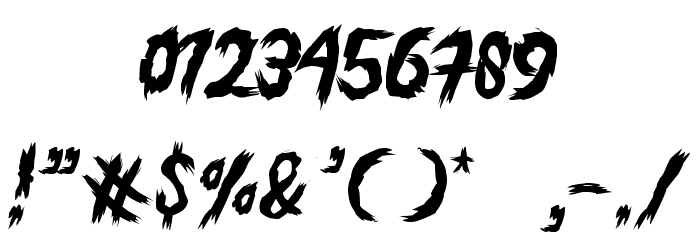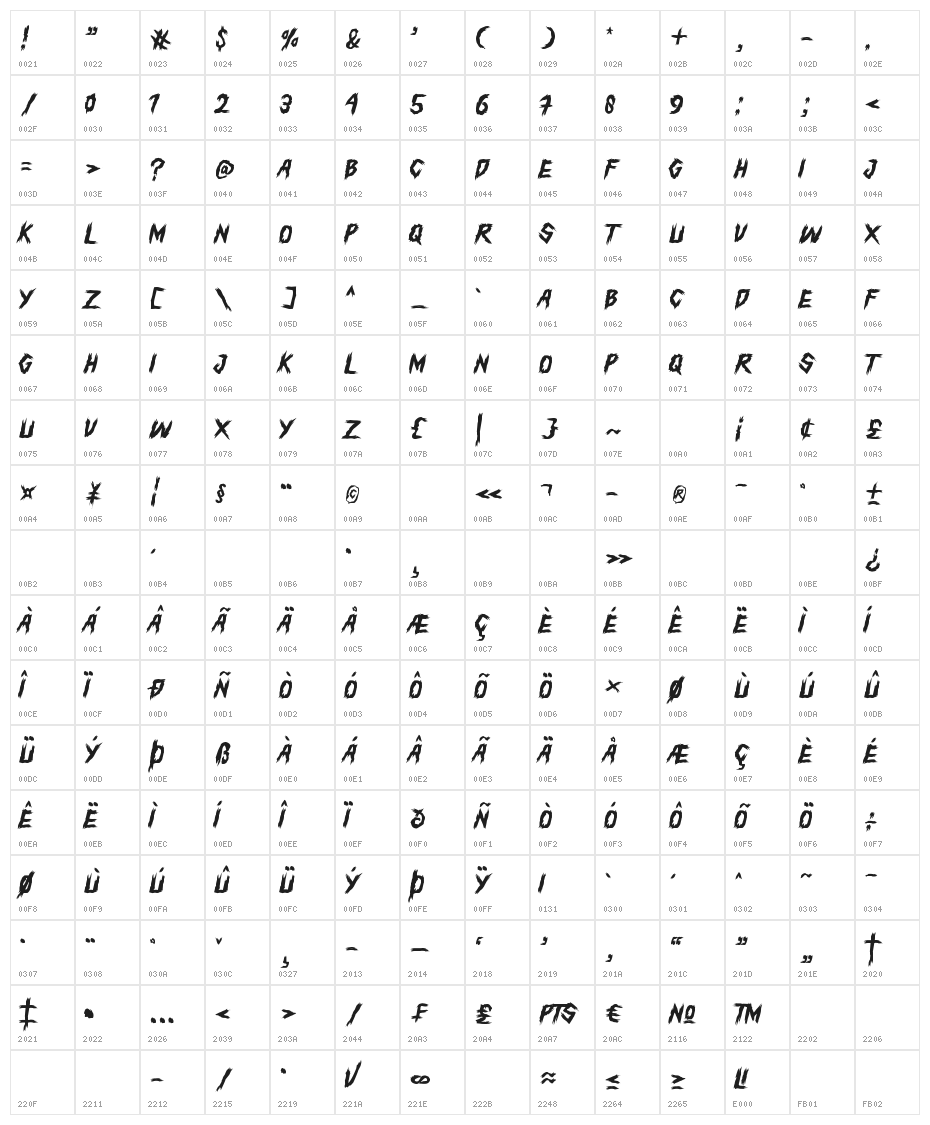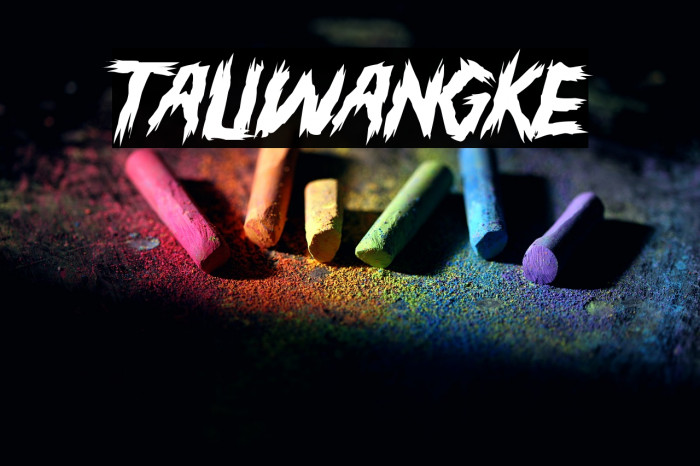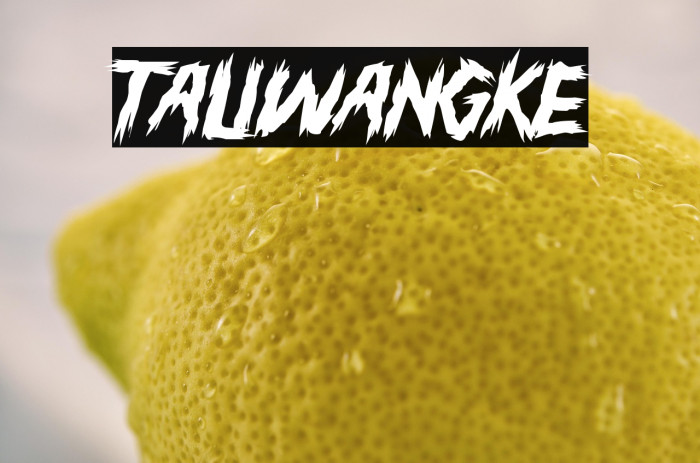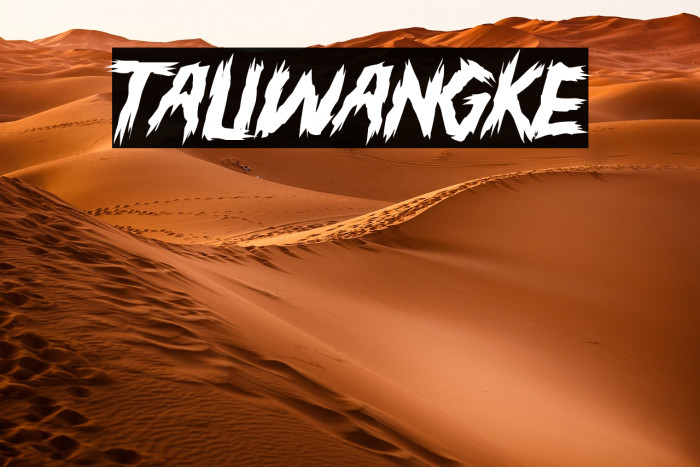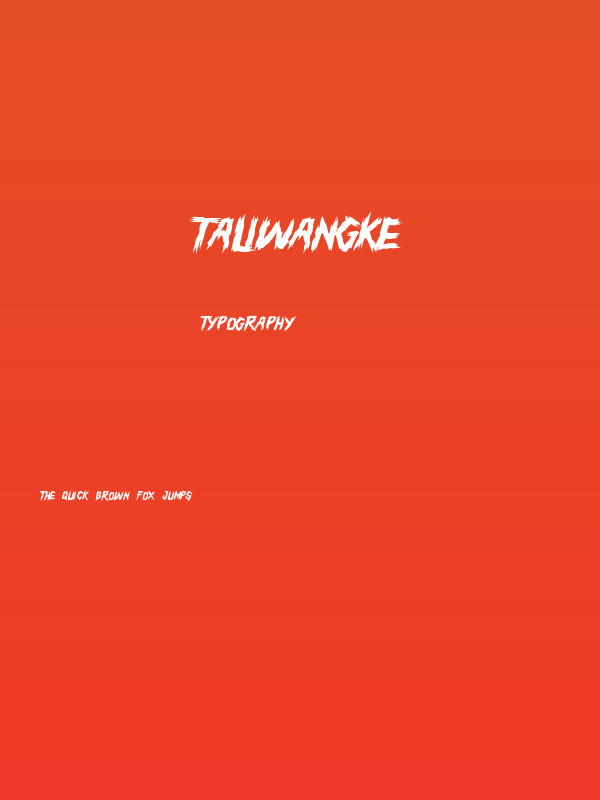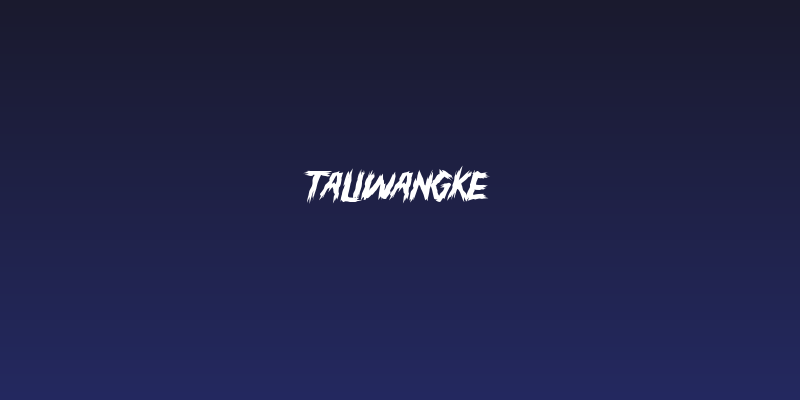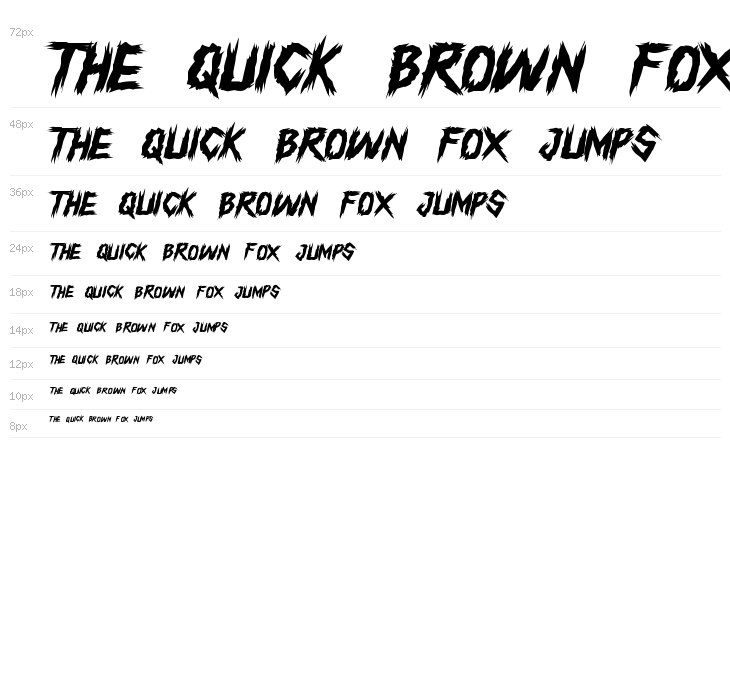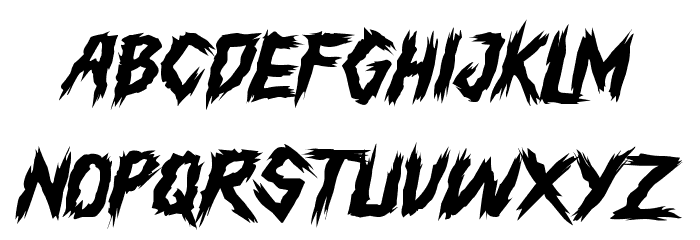
TALIWANGKE Font
TALIWANGKE Description
This font features a bold and jagged design, reminiscent of sharp, torn edges. The characters are dynamic and energetic, with an aggressive flair that suggests movement and intensity. The uppercase and lowercase letters maintain a consistent style, with each character appearing as if it has been carved or slashed. The numbers and special characters follow the same aesthetic, ensuring uniformity across all glyphs. This font's unique appearance makes it stand out, ideal for projects that require a strong visual impact.
| Proposed Projects | Perfect for horror-themed designs, edgy posters, album covers, or any project needing a striking and intense visual element. |